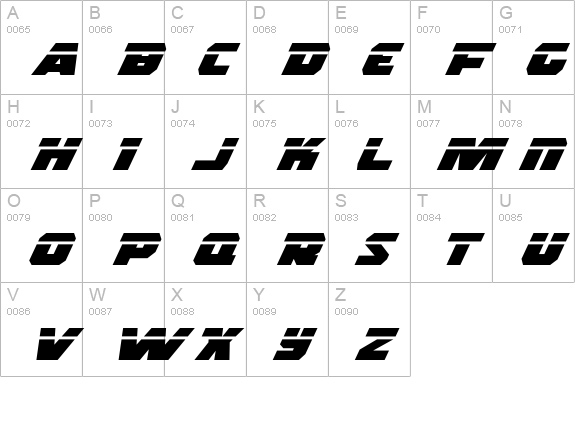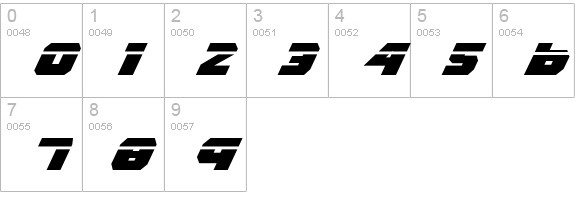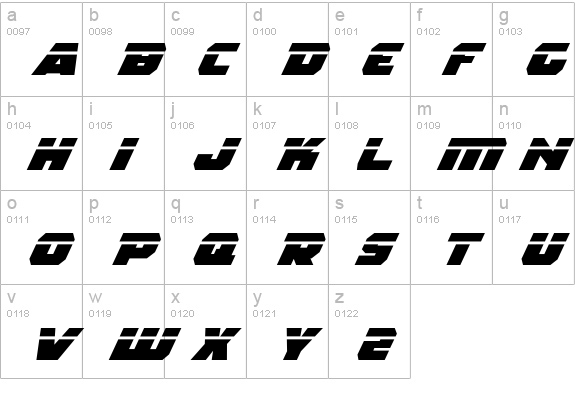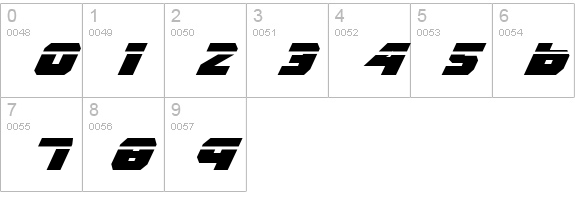
Rogue Hero LasEx Italic is a distinctive, italic variant in the Rogue typeface family \xE2\x80\x94 well suited to design and typography projects.
Rogue Hero LasEx Italic font is a dynamic and stylish typeface that exudes a sense of adventure and rebellion. Its sleek and sharp design makes it perfect for adding a touch of edginess to any project. The italic style adds a sense of movement and modernity to the font, making it stand out from the crowd. Whether you're working on a poster, logo, or website design, Rogue Hero LasEx Italic font will make your text pop and command attention. Its bold and distinctive look is sure to leave a lasting impression on your audience. Best of all, Rogue Hero LasEx Italic font is available for free download at FontsMarket.com. So go ahead and elevate your designs with this unique and eye-catching typeface today!